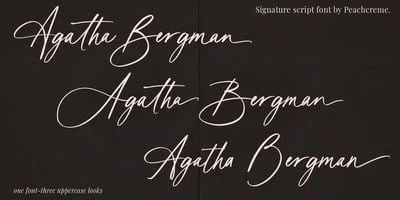
Agatha Bergman Font
Agatha Bergman Font is perfect for Scandinavian mystery novel covers, Nordic crime drama branding, detective fiction publication layouts, sophisticated mystery bookstore signage, investigative journalism presentations, crime thriller movie titles, suspenseful theater production graphics, mystery writer conference materials, Nordic literary festival promotions, and distinguished mystery lifestyle marketing campaigns.
What makes Agatha Bergman Font so exciting is its extraordinary ability to capture the sophisticated elegance and psychological complexity of Nordic mystery storytelling through precisely crafted letterforms that seem written by master detective novelists who understand that the most compelling mysteries emerge from the careful observation of human nature and the systematic unraveling of secrets hidden beneath layers of sophisticated deception. This font embodies the essence of Scandinavian literary excellence and mystery mastery, featuring intelligently structured characters that appear designed to carry both the elegance of refined Nordic culture and the underlying tension that makes mystery stories so psychologically compelling. The mysteriously refined letter shapes create an atmosphere of intellectual sophistication and suspenseful intrigue, making every word feel like it might contain hidden clues and the promise of discovering profound truths about human nature through the patient work of detection and psychological insight.
The Agatha Bergman Font family includes Light, Regular, Medium, Bold, and Suspense variations, along with mystery symbols and Nordic-inspired decorative elements. Each style maintains the font's distinctive mystery character while offering versatility for different storytelling applications, from subtle psychological thriller text to commanding mystery headlines that announce the arrival of sophisticated crime fiction and literary suspense.
This intellectually captivating typeface brings authentic Nordic mystery aesthetics to contemporary design projects. The Agatha Bergman Font provides designers with an invaluable resource for creating memorable brand identities that communicate literary sophistication, mystery excellence, and Nordic authenticity. Whether you're developing mystery publishing branding, designing crime fiction materials, or creating suspenseful literary communications, this font delivers unmatched mystery credibility and Nordic appeal.
The masterfully crafted letterforms in Agatha Bergman Font feature psychological depth and Nordic clarity that mirror the sophisticated plotting techniques of legendary mystery writers and the cultural sophistication that enables Scandinavian authors to create crime fiction that combines thrilling suspense with profound insights into human psychology and social dynamics. Each character has been designed to maintain perfect readability while expressing the intellectual rigor and cultural sophistication that define authentic Nordic literary tradition. The font's distinctive personality makes it ideal for applications requiring genuine mystery authority and Scandinavian literary credibility.
Literary and publishing professionals appreciate how Agatha Bergman Font effortlessly communicates mystery sophistication, Nordic excellence, and literary authenticity while appealing to readers and cultural enthusiasts seeking sophisticated mystery experiences that honor both the thrilling aspects of crime fiction and the profound psychological insights that make Nordic mysteries so internationally acclaimed. The comprehensive character set includes mystery symbols, Nordic decorations, literary elements, and extensive international language support, ensuring global compatibility while preserving its distinctive Agatha Bergman identity. This makes it an invaluable resource for mystery publishers, Nordic cultural organizations, literary festivals, and any institution seeking typography that embodies the fundamental values of literary excellence, mystery storytelling, and the kind of cultural sophistication that has made Scandinavian crime fiction a global phenomenon by combining thrilling plots with psychological depth, social commentary, and the Nordic tradition of exploring complex moral questions through stories that entertain while challenging readers to think deeply about justice, truth, and the hidden complexities of human nature that make ordinary people capable of both extraordinary good and unexpected evil, ensuring that mystery literature continues to serve its vital role as both entertainment and social mirror that reflects the complexities of modern society while celebrating the human capacity for both detection and deduction in the eternal quest for truth and justice.